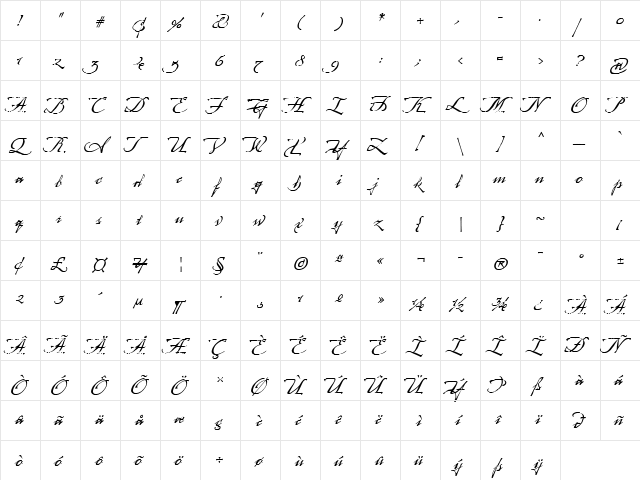
Arcana GMM Std Manuscript Regular
| Designer | Gabriel Martz Meave |
Design Context for Arcana GMM Std Manuscript Typeface
Arcana GMM Std Manuscript brings a calligraphic fluidity to the page — its connecting strokes and expressive curves give it an unmistakably human quality.
Font Pairing: Combine Arcana GMM Std Manuscript with a simple geometric sans for maximum contrast — the tension between flowing curves and clean structure is a classic typographic pairing.
Pro Tip: Use Arcana GMM Std Manuscript for short runs of text — names, titles, or taglines. Extended body copy in script faces tires the eye quickly.